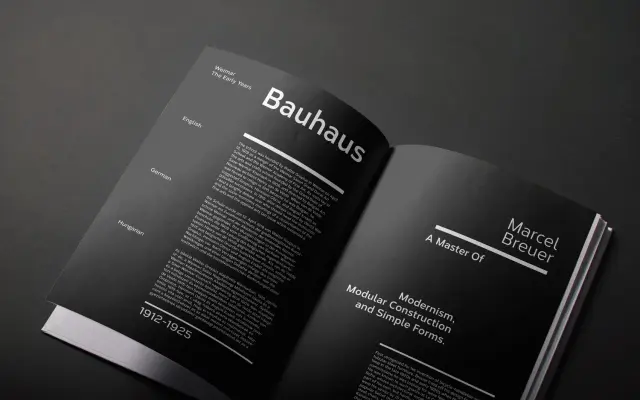
Corbert
The Northern Block · 2013
A Bauhaus-influenced geometric sans-serif with optically adjusted letterforms, available across nine weights with matching italics.
First released in 2013 and updated in 2020, Corbert draws on early modernist and Bauhaus principles to produce a clean, functional geometric sans. Nine weights from Thin to Black each carry a matching italic, and over 540 characters per style cover Western, Southern and Central European languages. OpenType features include five numeral variants, fractions, and alternate forms of the lowercase a, e and g.
Explicitly Bauhaus-influenced geometric sans-serif with optically adjusted circular forms and a minimalist, functional character consistent with the geometric sans tradition.